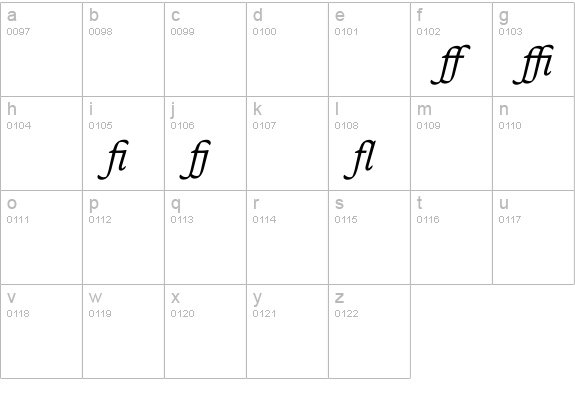
RenardNo2-ItalicLig is a stunning font that exudes elegance and sophistication. Its sleek and modern design is perfect for adding a touch of class to any project. With its italic ligature style, this font is sure to catch the eye and make a lasting impression. What sets RenardNo2-ItalicLig apart is not only its exquisite design, but also the fact that it is available for free. Yes, you read that right! This fantastic font can be freely downloaded at FontsMarket.com. Whether you are a graphic designer, a blogger, or simply someone who loves typography, RenardNo2-ItalicLig is a must-have in your font collection. The fluidity of the italic ligature style adds a sense of movement and grace to any text. It effortlessly combines the classic elegance of italic lettering with a contemporary twist, making it incredibly versatile and suitable for a wide range of projects. From invitations and logos to branding materials and websites, RenardNo2-ItalicLig will elevate your designs to new heights. The attention to detail in the design of RenardNo2-ItalicLig is truly remarkable. Each letter is meticulously crafted, ensuring that every curve and stroke is perfectly balanced. The result is a font that is not only visually stunning but also highly legible, making it a pleasure to read. RenardNo2-ItalicLig is a font that demands attention and stands out from the crowd. Its unique style and versatility make it a valuable asset for any designer or creative professional. And the best part? It is freely available to download at FontsMarket.com. So why wait? Get your hands on this amazing font and start creating beautiful designs today!